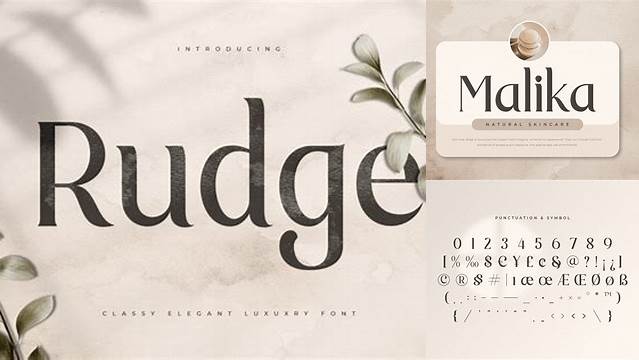
Rudge Font: Free Download For Elegant Design
Hey guys! Are you on the hunt for a font that screams sophistication and style? Well, look no further! Today, we're diving headfirst into the world of Rudge, a typeface that embodies class, elegance, and a touch of luxury, and the best part? It's available for free download! Whether you're a seasoned designer or just starting out, Rudge is a fantastic addition to your font arsenal. It's versatile enough to use in a variety of projects, from branding to invitations, and everything in between. So, let's get down to business and explore what makes Rudge such a standout choice, and how you can get your hands on it.
What Makes Rudge So Special? Unveiling the Elegance
First things first, what exactly is it about Rudge that makes it so darn appealing? The answer lies in its design. This font is meticulously crafted, with each curve and line designed to exude a sense of refined taste. Rudge belongs to the category of serif fonts, known for their small strokes (serifs) at the end of each letter. However, Rudge isn't just any serif font; it boasts a unique character that sets it apart from the crowd. Its letterforms are clean, crisp, and have a modern feel, but without losing that classic touch. The font strikes a perfect balance between being approachable and high-end, making it suitable for a wide range of design applications. Imagine using it for a luxury brand's logo, a high-end fashion magazine, or even your wedding invitations. The possibilities are truly endless! The designers behind Rudge have clearly put a lot of thought and effort into creating a typeface that is both beautiful and functional. They've considered how each letter will interact with the others, ensuring a harmonious and visually pleasing result. This attention to detail is what truly elevates Rudge from a simple font to a work of art. Its elegant nature lends itself perfectly to projects where you want to make a statement. It's the kind of font that draws the eye and leaves a lasting impression. It says, "I'm here, and I'm important."
Think about the brands you admire – the ones that always seem to have that 'it' factor. Chances are, they've carefully selected a font that perfectly represents their identity. Rudge provides that same level of sophistication and style without breaking the bank! Furthermore, using a high-quality font like Rudge can significantly improve the overall aesthetic of your designs. In today's visual world, appearance is everything. A well-chosen font can be the difference between a design that's ignored and one that captures attention. Whether you're working on a personal project or a professional one, choosing the right font is a crucial step. It communicates your brand's personality, values, and the overall tone you want to convey. Rudge allows you to project an image of class, sophistication, and attention to detail, essentially communicating that you care about the quality of your work. So, if you're ready to take your designs to the next level and make them feel extra special, then Rudge might just be the perfect fit for you. Trust me, it's a game-changer! So, what are you waiting for? Go ahead and get it downloaded. You won't regret it!
Maximizing Rudge: Best Practices and Design Tips
Okay, so you've got the font downloaded, and you're itching to start using it. But where do you start? Here are a few tips to help you make the most of Rudge and create stunning designs:
- Choose the Right Context: The elegant nature of Rudge makes it suitable for a wide range of applications. Think about using it for: logos, headings, invitations, editorial design, and branding projects. Avoid using Rudge in large blocks of body text, as it might make reading difficult. It's best used for headlines, titles, and short pieces of text where you want to make a statement. It's all about knowing when to use it!
- Experiment with Spacing: Kerning (the space between individual letters) and leading (the space between lines of text) can greatly affect the appearance of your design. Try adjusting these settings to find the perfect balance and enhance readability. Sometimes, a little adjustment can make a big difference. Don't be afraid to play around with these settings to see what looks best for your specific project. If you're using Rudge for a logo, for example, you might want to tighten the kerning to create a more compact and cohesive look. For headings, you can increase the leading to give the text some breathing room and make it easier to read.
- Pair it with Other Fonts: While Rudge is stunning on its own, you can also pair it with other fonts to create a more dynamic and visually appealing design. Think about pairing it with a clean, modern sans-serif font for body text, or a simple script font for a touch of personality. Make sure the fonts complement each other, avoiding too much visual clutter. Choosing the right font combinations can really make your design pop! Consider the overall tone and style of your project, and then select fonts that reflect that. For example, a more modern pairing may include Rudge with a geometric sans-serif font for a sleek, contemporary design. Conversely, if you're aiming for a more romantic feel, you could pair Rudge with a delicate script font. The possibilities are endless!
- Consider Color: The color of your text can have a huge impact on its impact. Rudge looks great in a variety of colors, but it's especially effective in gold, black, or white. Also, make sure the color you choose complements your background. For instance, if you're using a dark background, white or light-colored text will provide better readability. Think about how your font color contrasts with the background and other design elements. For a luxurious effect, you could use Rudge in gold or metallic tones, which makes the design stand out. On the other hand, if you want something more subtle, a simple black or gray will do the trick. The right color can highlight your design and draw attention to the most important elements.
- Test, Test, Test: Finally, always test your design across different mediums and devices. Make sure your design looks good on screen, in print, and on various mobile devices. Always check your design on several different screens. Check for any compatibility issues that can come up. This allows you to ensure that your design renders correctly and looks the way you intended. This step is really important if you are using Rudge in a logo or brand, as it should look the same on any application.
The Wrap-Up: Embracing the Class of Rudge
And there you have it, guys! Rudge is more than just a font; it's a statement. With its elegant and luxurious design, it's perfect for anyone looking to elevate their brand. From logos to invitations, Rudge adds a touch of sophistication. So, go ahead, download Rudge, and let your designs shine. Happy designing!